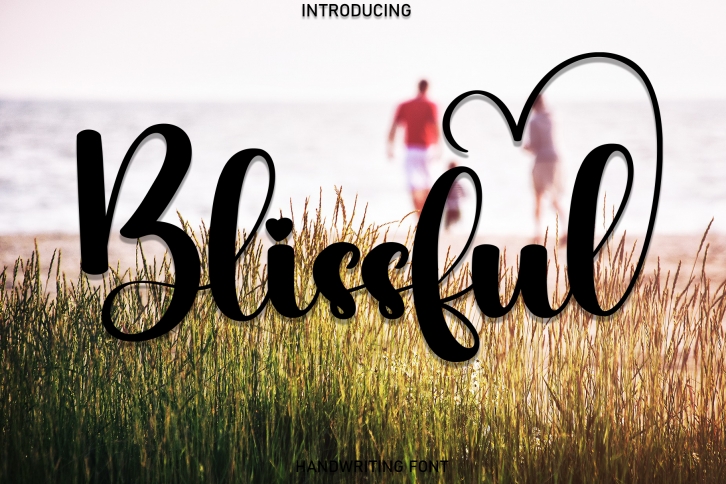
Blissful is a sweet, whimsical, flowing and thin script font. Featuring characters that dance along the baseline, this font will add a luxury spark to any design project that you wish to create!